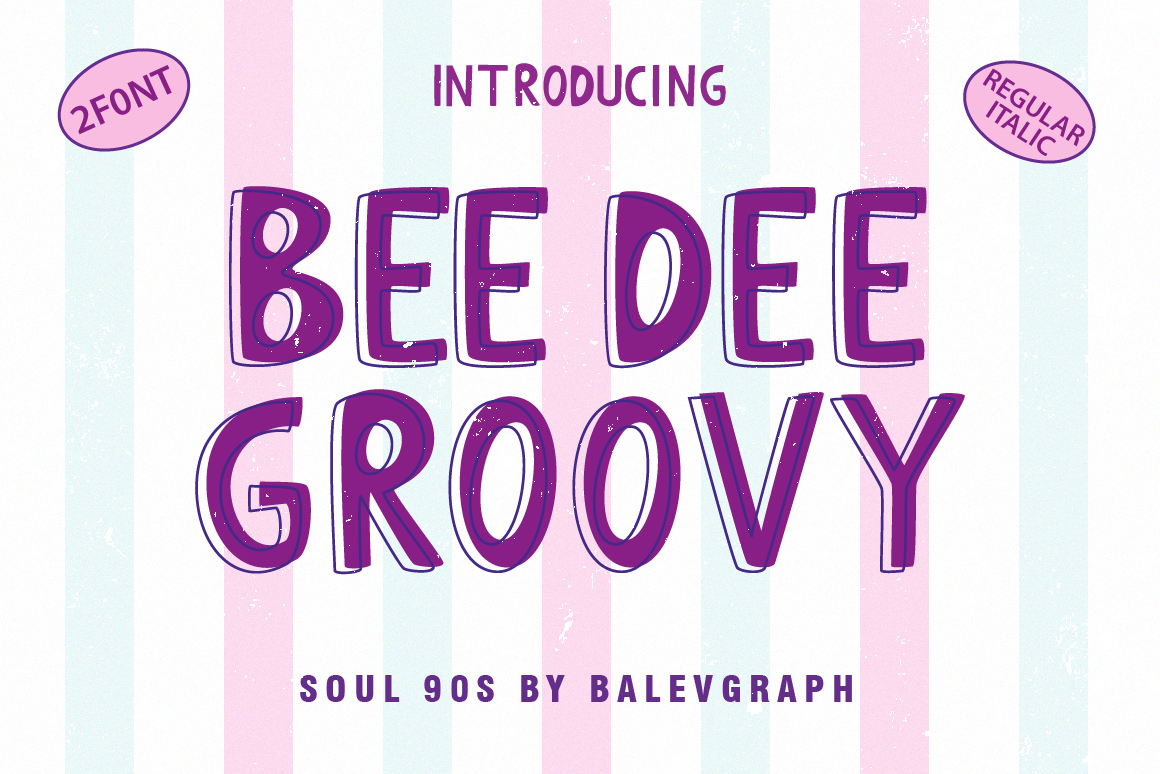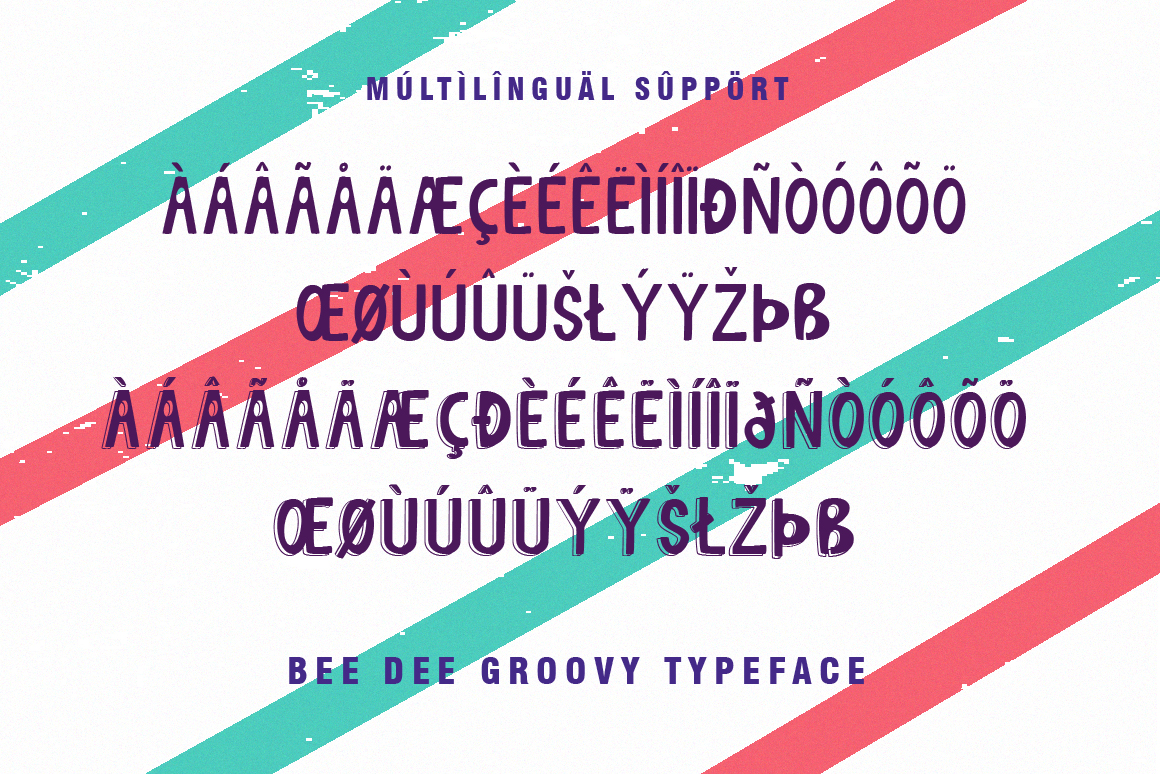
Bee Dee Groovy Font
Bee Dee Groovy Display Font
This is a bold 80-90s style retro display font. This typeface will add a unique touch to any creative idea ranging from business cards to children’s activity books, and more!